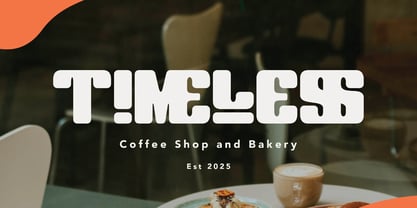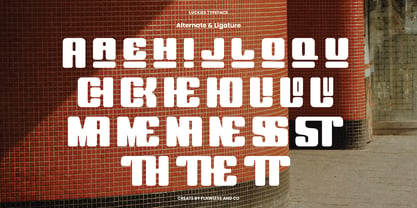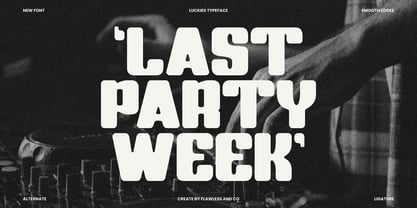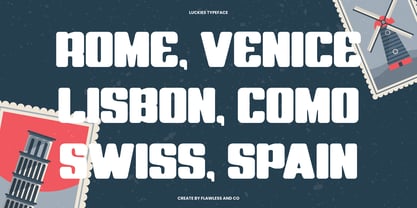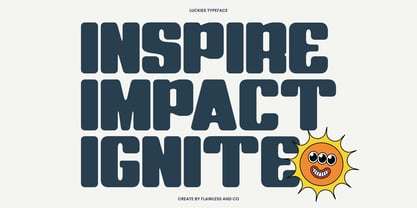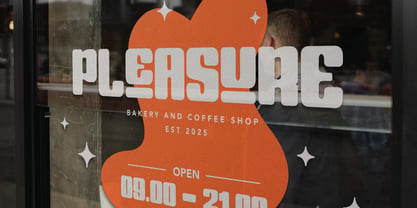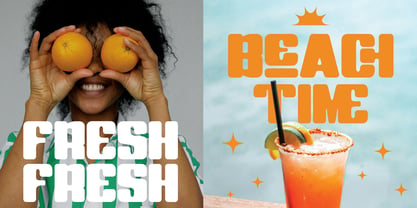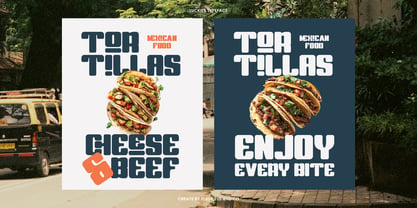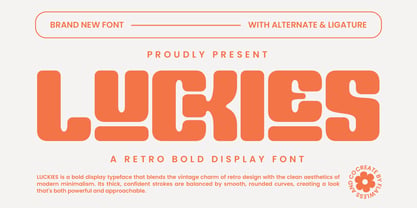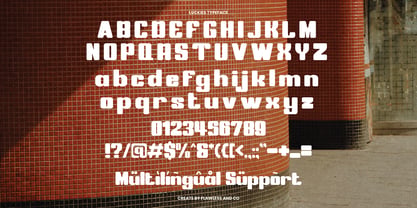
Luckies
by Flawlessandco
The Luckies Font Family was designed by Achmad Yani and published by Flawlessandco. Luckies contains 1 styles. More about this family
LUCKIES is a bold display typeface that blends the vintage charm of retro design with the clean aesthetics of modern minimalism. Its thick, confident strokes are balanced by smooth, rounded curves, creating a look that’s both powerful and approachable. This font is designed to make a bold statement while keeping a friendly and nostalgic vibe — ideal for designers who want to inject personality into their branding, signage, packaging, or editorial projects. With a full set of alternates and ligatures, LUCKIES gives you creative freedom to customize your typography with ease.
Features :
Multilingual. Uppercase alphabet A-Z, Lowercase alphabet a-z, Numbers 0-9, Some punctuation, Alternates & Ligatures
Designers: Achmad Yani
Foundry: Flawlessandco